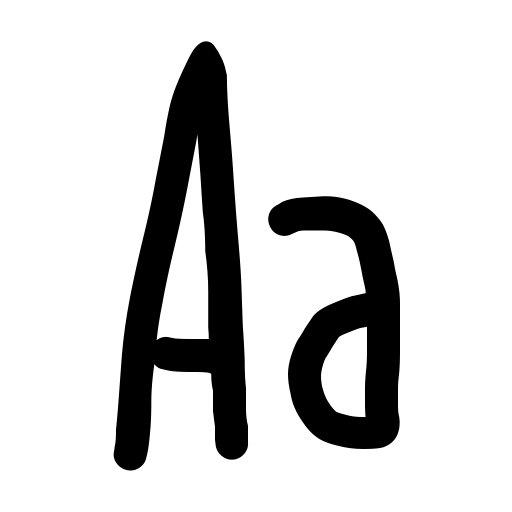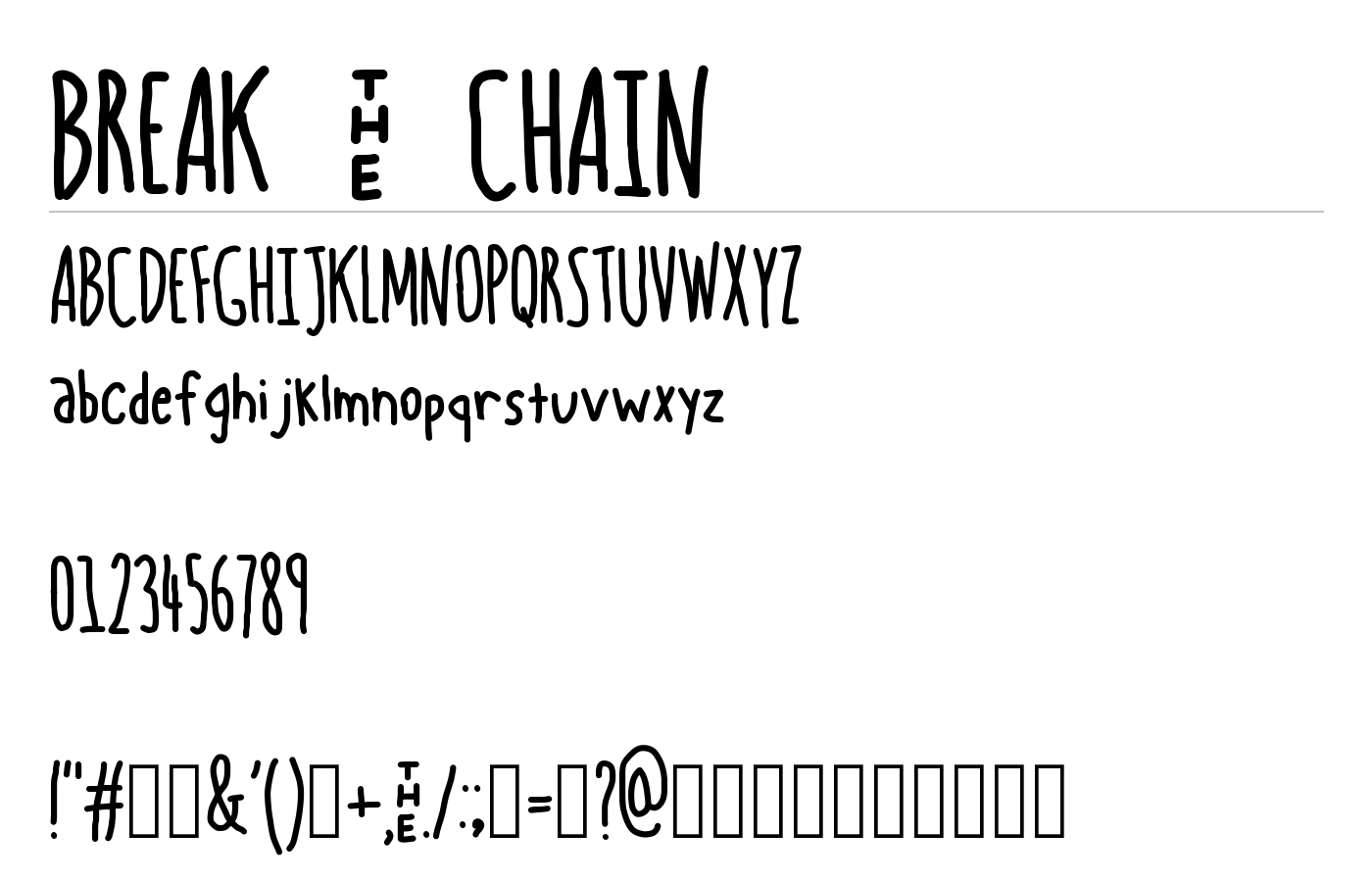
BREAK - CHAIN is a tall, narrow sans-serif font with a casual, hand-drawn feel. Its irregular strokes and slightly uneven letterforms give it an approachable, playful character that works well for creative and informal designs. This font is ideal for headlines, posters, and branding that seeks a unique, friendly, and expressive vibe.
BREAK - CHAIN Font
About BREAK - CHAIN Font